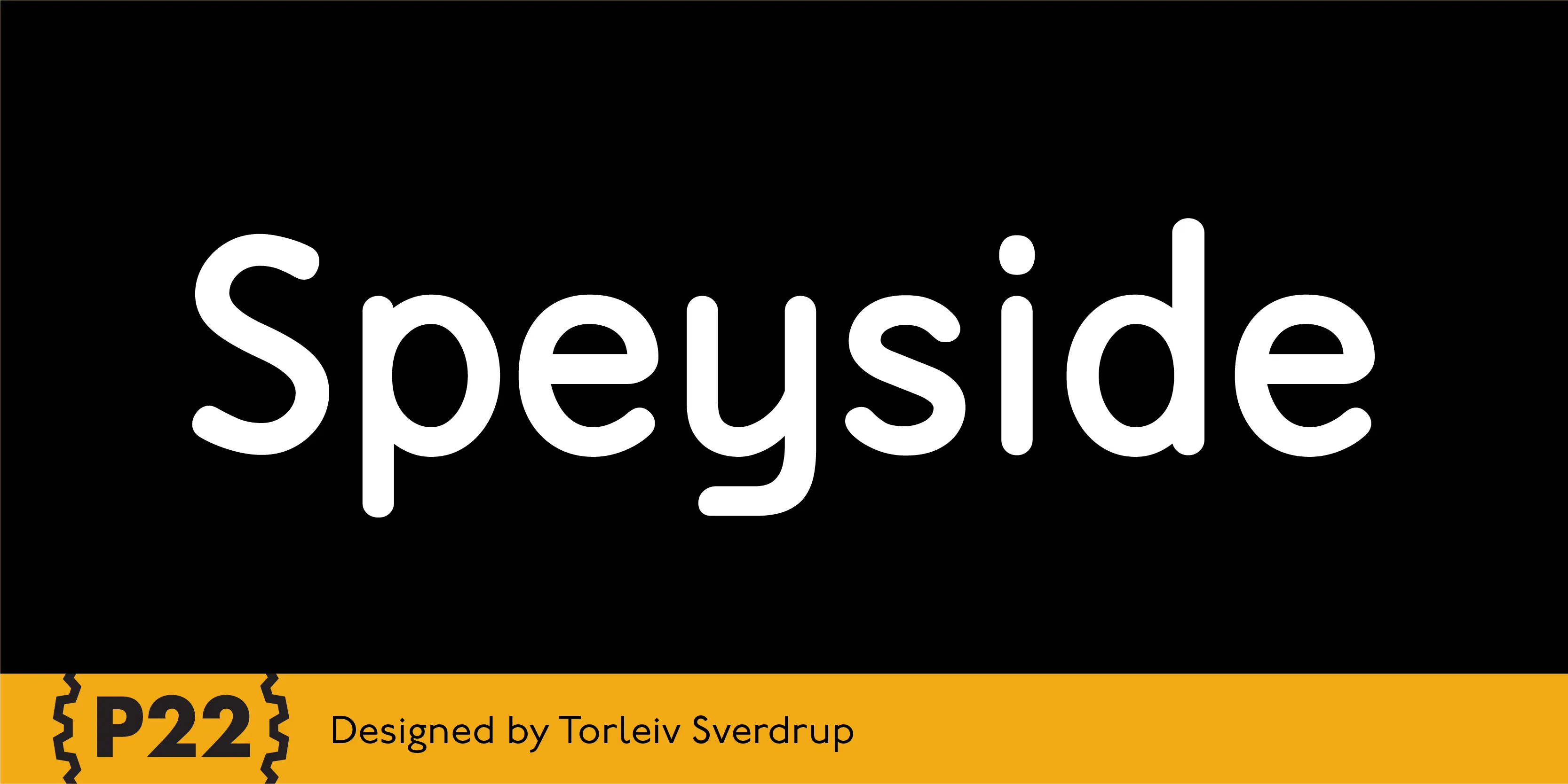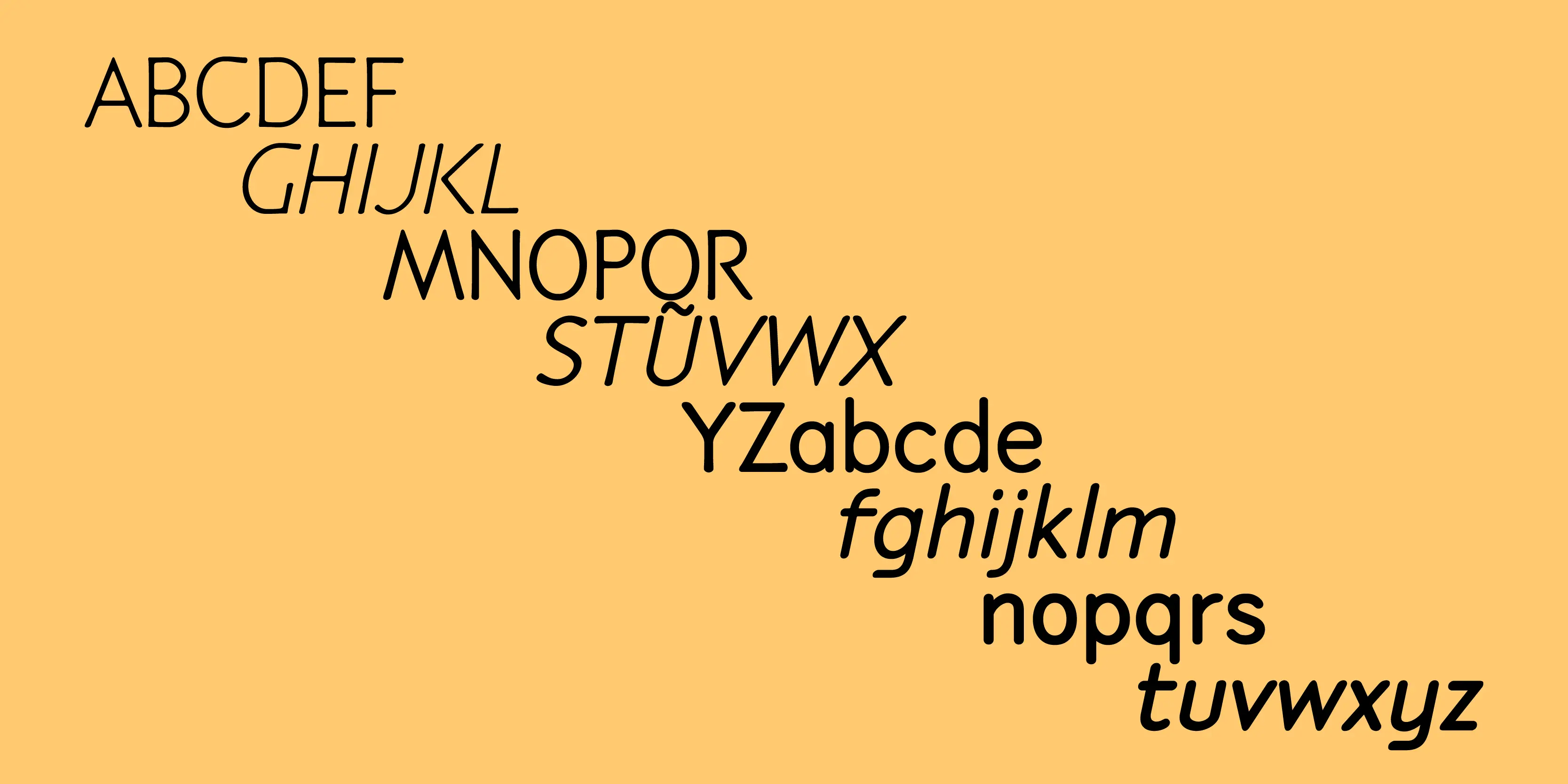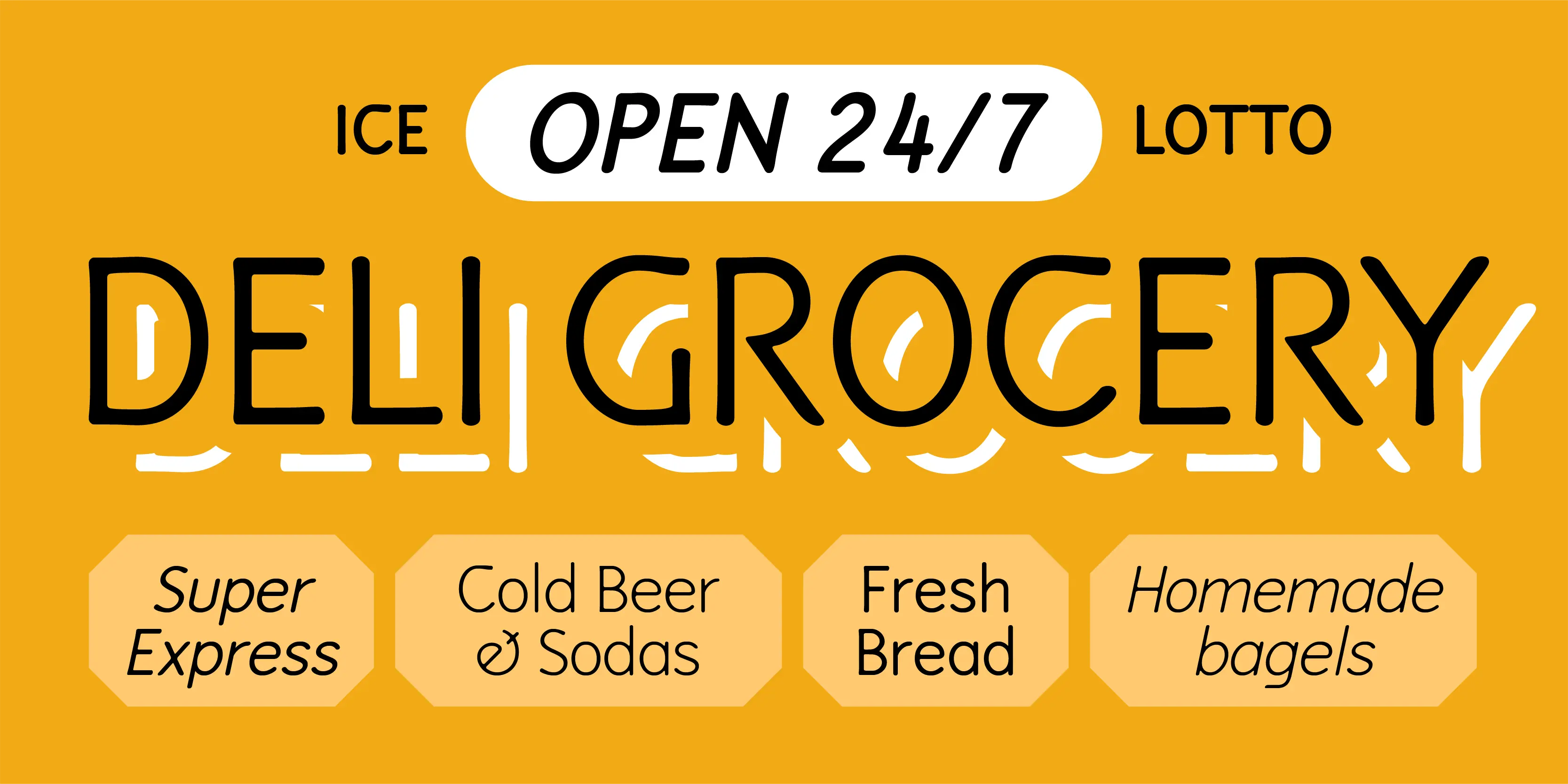
Speyside Font Family
Speyside
Speyside is a round, curved and controlled sans serif with an additional set of decorated uppercase letters, initials and small caps. It’s appropriate for text, titling and display. The origin of the name is taken from a small location in Tobago. The font is inspired by the local handicraft, the batik in particular.
• Chinese Pinyin
• Fractions
• Small Capitals
• Superscript
Stylistic Set 1
Fractions
Scientific Inferiors
Superscript
Numerators
Denominators
Small Capitals